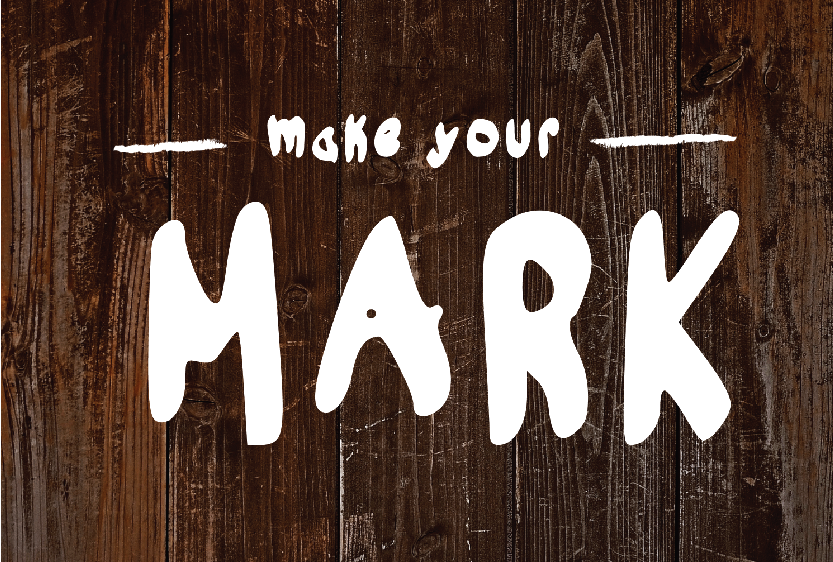
MAKE YOUR MARK FONT
The Marker font includes a full set of capital and lowercase letters. Perfect for your blog, website, flyers or posters. Want to send a bold and powerful message? well this font outta do the job perfectly! use lower case and upper case for a flawless blend or send you message with power and use the upper cases.